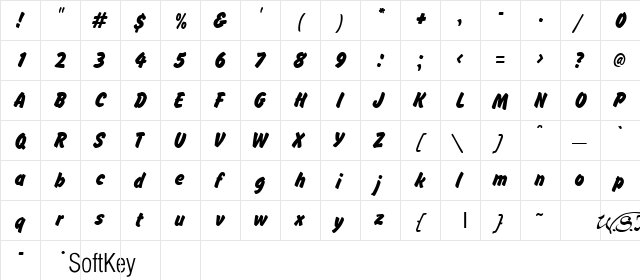
Brush Hand Regular
Design Context for Brush Hand Typeface
Brush Hand flows with the natural rhythm of handwritten lettering, making it ideal for designs that call for warmth and personal expression.
Font Pairing: Combine Brush Hand with a simple geometric sans for maximum contrast — the tension between flowing curves and clean structure is a classic typographic pairing.
Pro Tip: Pair Brush Hand with a clean sans-serif for supporting text. The contrast between fluid script and geometric structure creates an elegant typographic hierarchy.